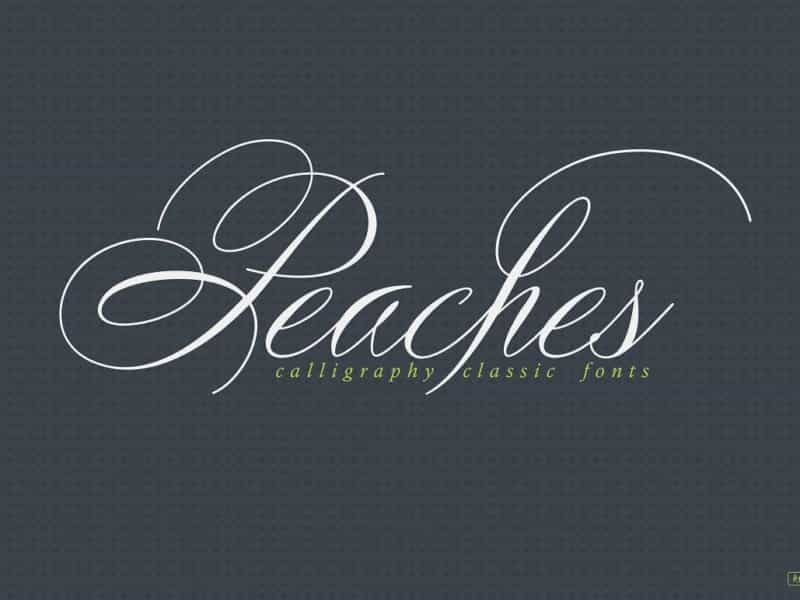
Introducing Peaches. Peaches font is a traditional calligraphic typeface, which has rather thick lines and a moderate contrast between thick and thin lines. This is a thin font that is oblique and it is perfect for formal or literal writing. There you will try to find a beautiful font, which can be a classic for you. I am quite certain that this font will pretty up your rich to be elegant, sweet and perfect. .